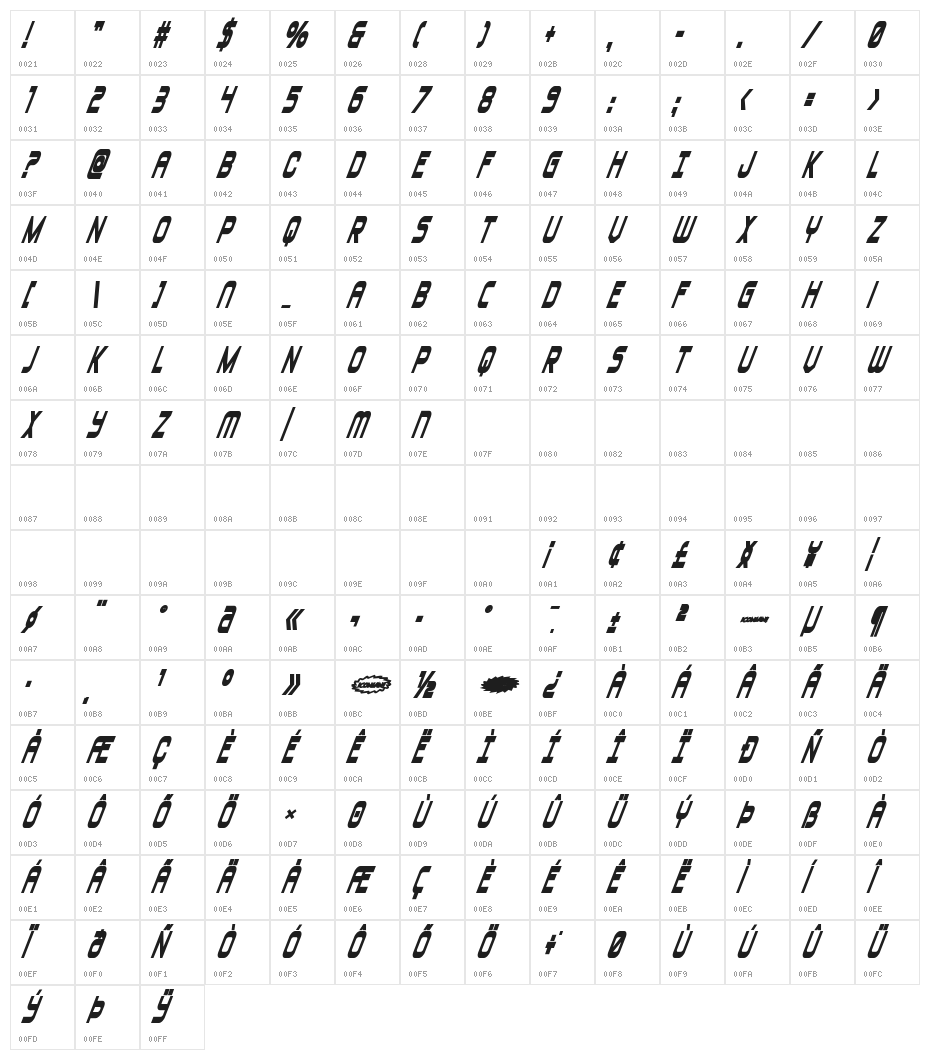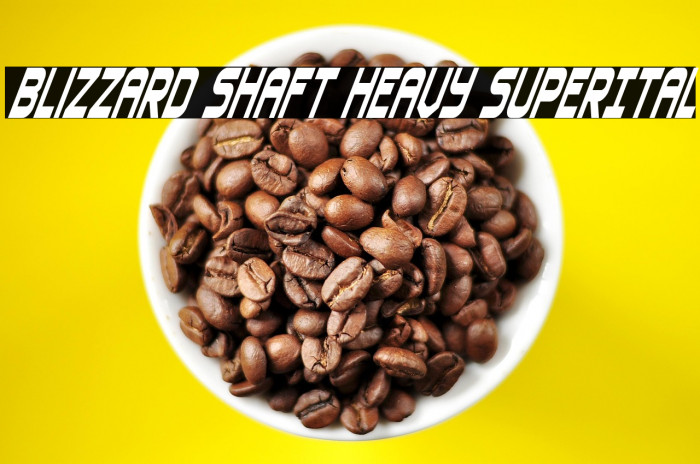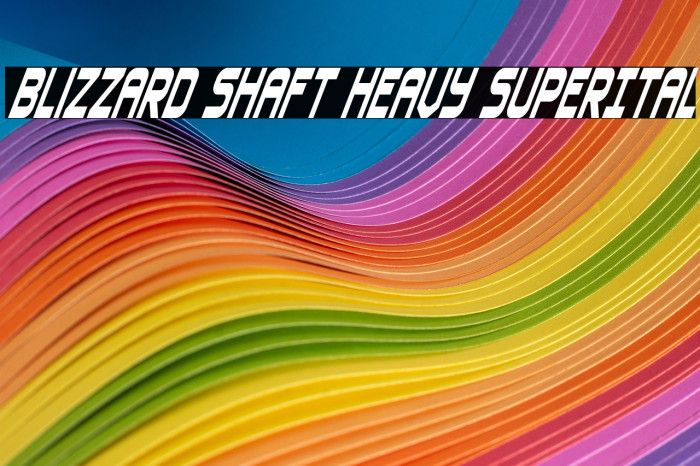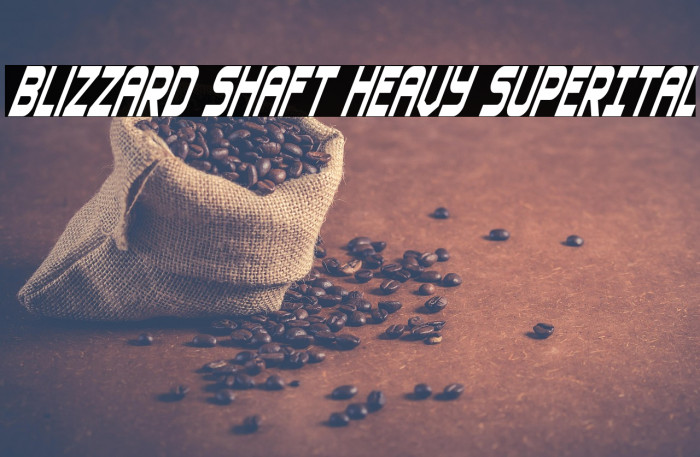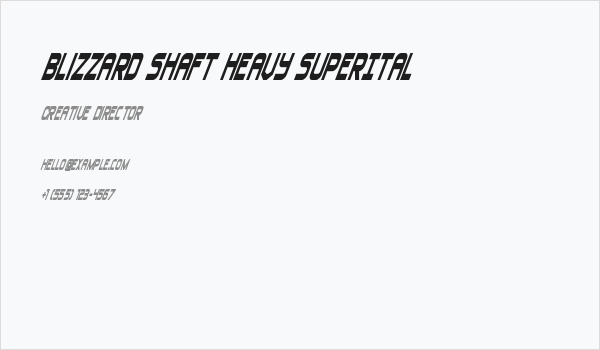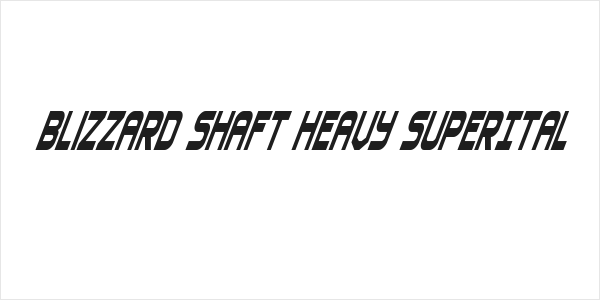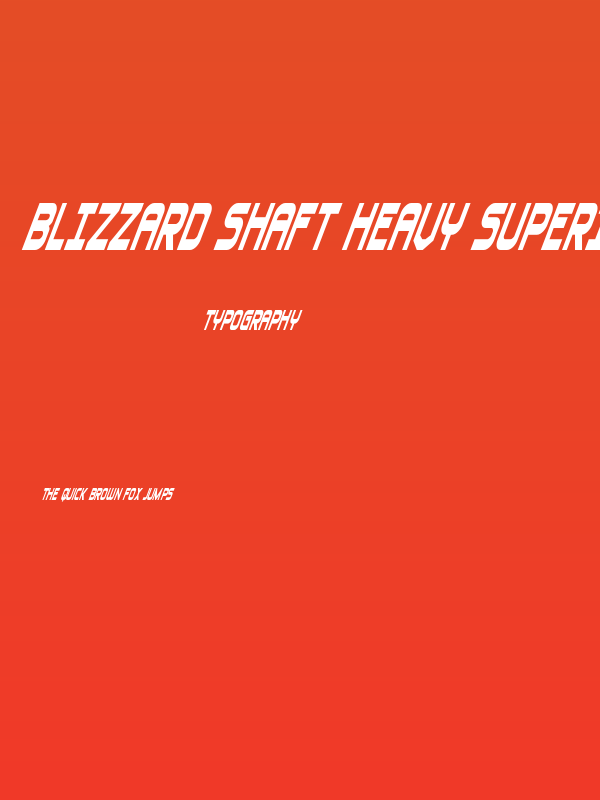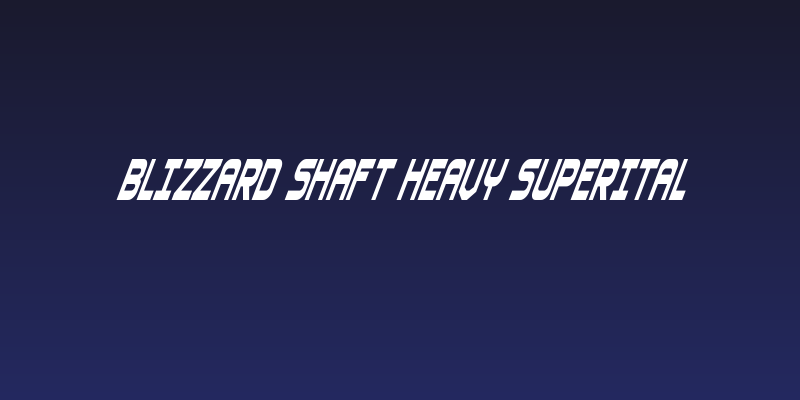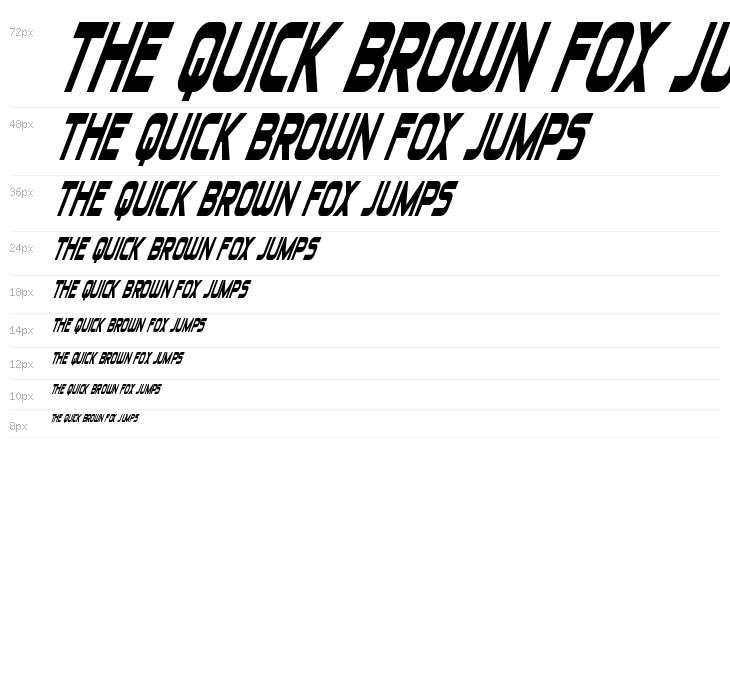
Blizzard Shaft Heavy SuperItal Font
Blizzard Shaft Heavy SuperItal Description
This font features a bold and dynamic style with a strong slant, giving it a sense of motion and energy. The characters are heavily weighted, providing a robust and impactful appearance. The angular design and sharp edges contribute to its modern and aggressive look, making it stand out in any context. The uppercase and lowercase letters maintain consistency in style, while the numerals and special characters are designed to complement the overall aesthetic. The font's unique style is suitable for projects that require a bold statement and a contemporary feel.
Proposed ProjectsIdeal for sports branding, action movie posters, video game titles, and dynamic advertising campaigns.